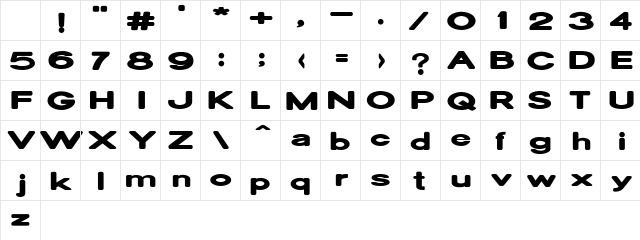
Complete Oscan Expanded Rounded Regular glyph index. Displaying only characters natively supported by Oscan Expanded Rounded Regular font.
Oscan Expanded Rounded softens its letterforms with rounded terminals, giving it an approachable, friendly quality that works well in consumer-facing and digital contexts.
Font Pairing: Pairs well with a rounded or humanist sans for body copy, maintaining the friendly tone without relying on Oscan Expanded Rounded to carry extended reading.
Pro Tip: Use Oscan Expanded Rounded for UI elements, app interfaces, and anywhere a friendly, approachable tone needs to be maintained without sacrificing clarity.